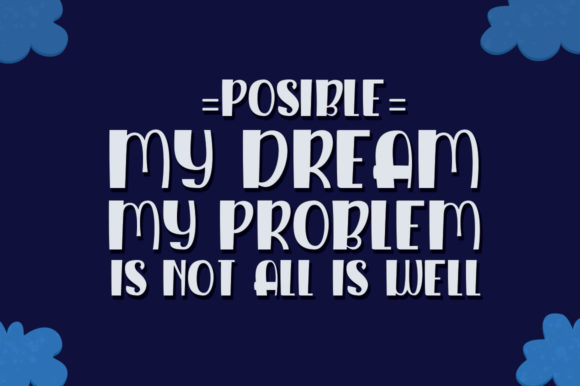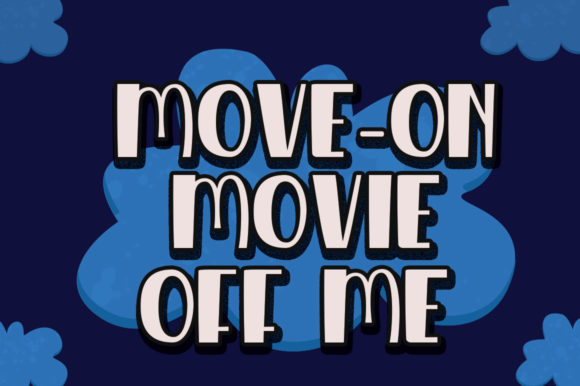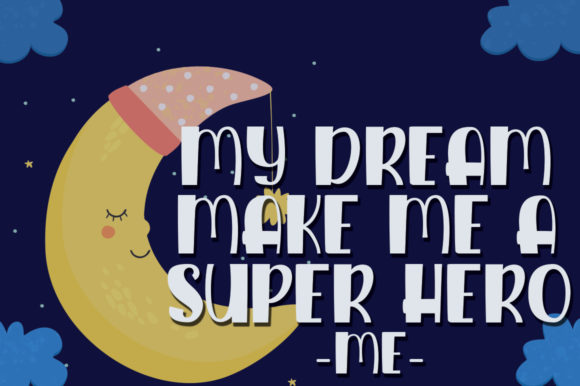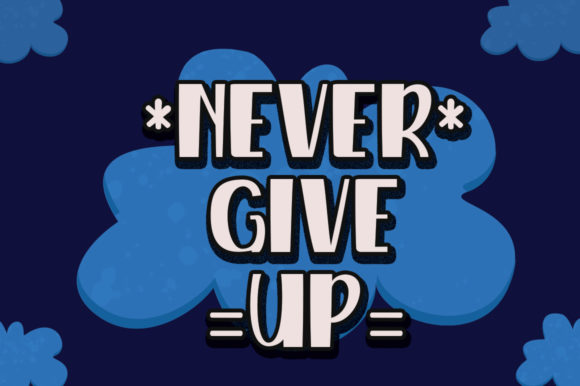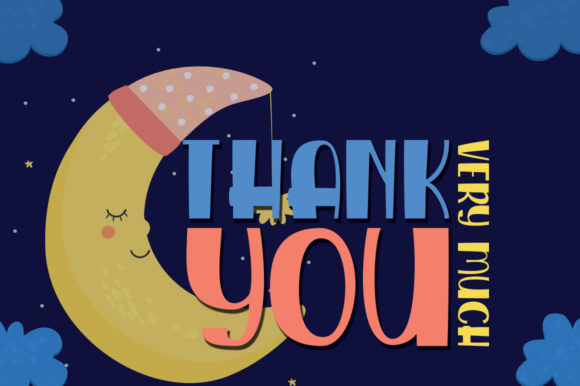
Sleep Charm Font
About Sleep Charm Font
Sleep Charm is a cute handwritten font, carefully handcrafted to become a true favorite. This font will look outstanding in any context, whether it’s being used on busy backgrounds or as a standalone headline!